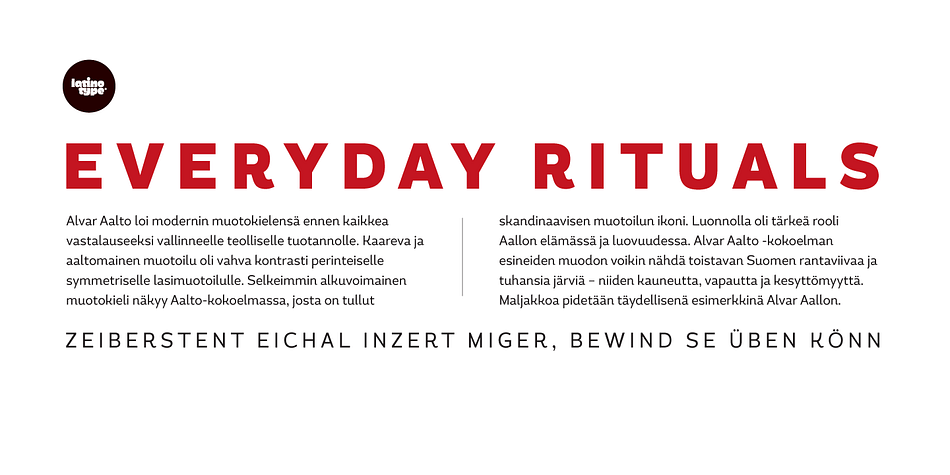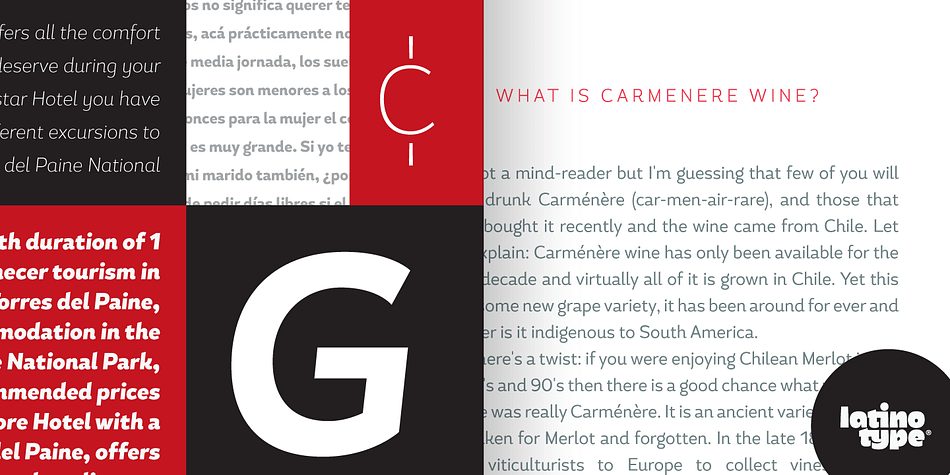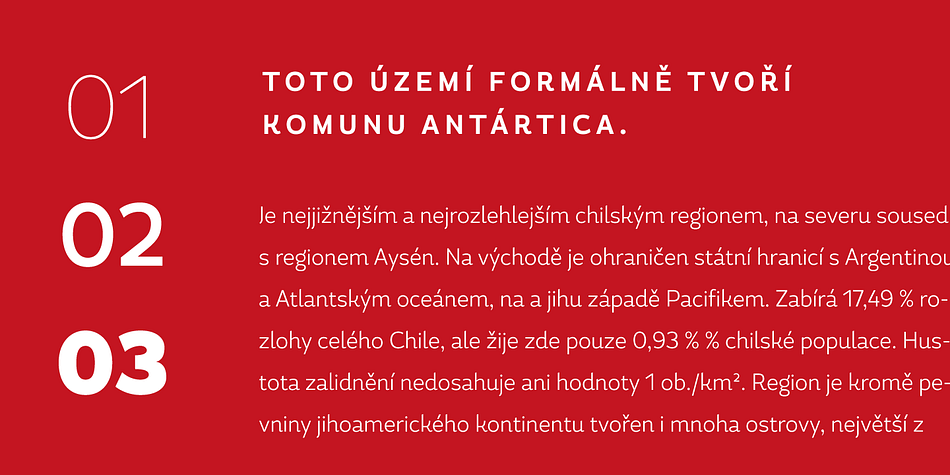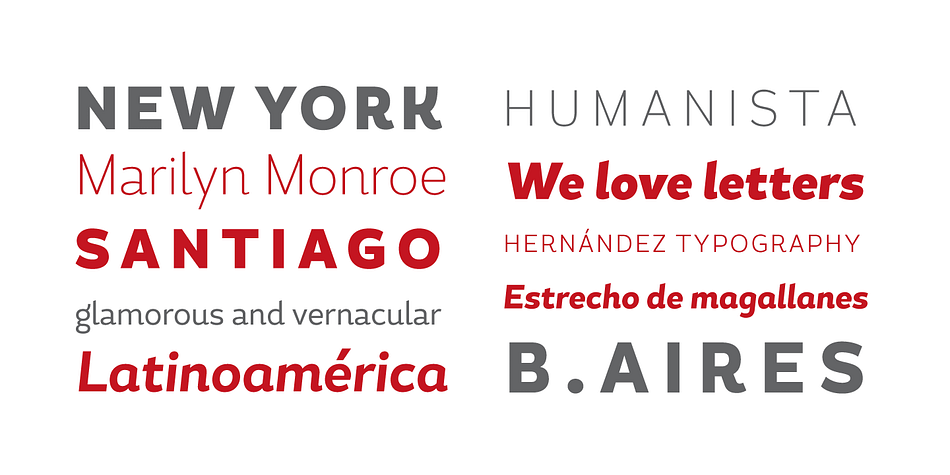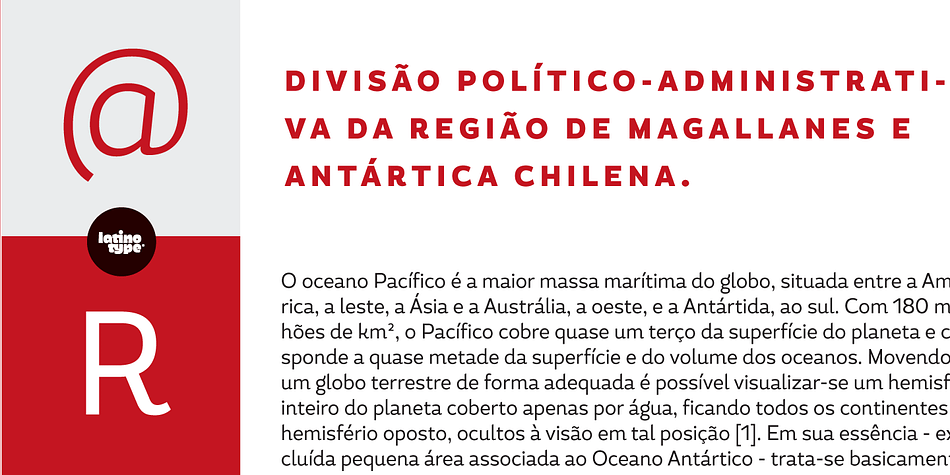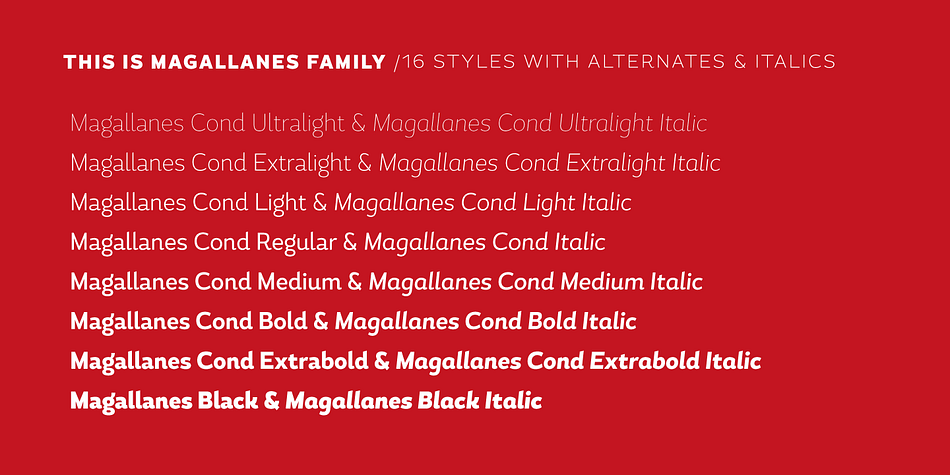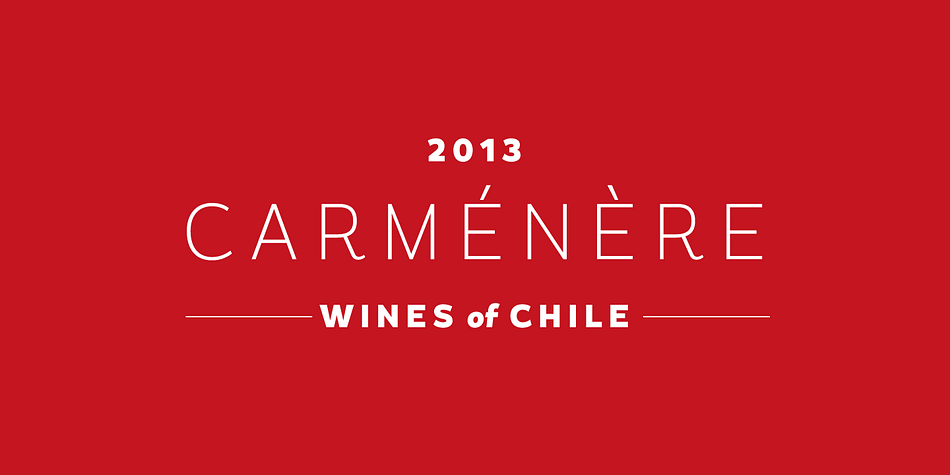
Magallanes Cond is a sans serif font family. This typeface has sixteen styles and was published by Latinotype.
Say hello to the new Magallanes Condensed Family, a contemporary neo-humanist sans serif font designed by Daniel Hernández. Its strokes and terminals are related to the calligraphic strokes from humanist typefaces. It comes with 8 styles, from Ultra Light to Black, each with its true italics. Every weight comes with alternative glyphs for a more dynamic use. Magallanes is the perfect titling font to complement text faces in magazines, logotypes, etc.